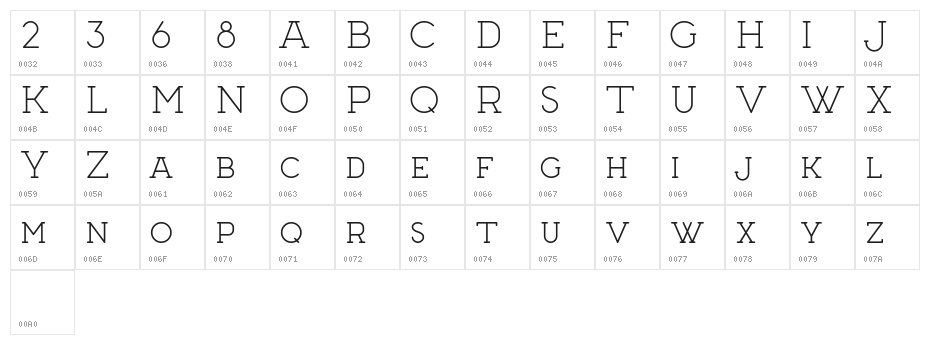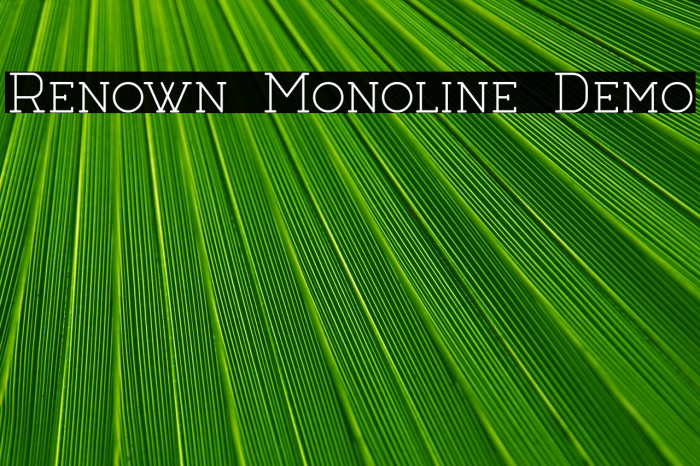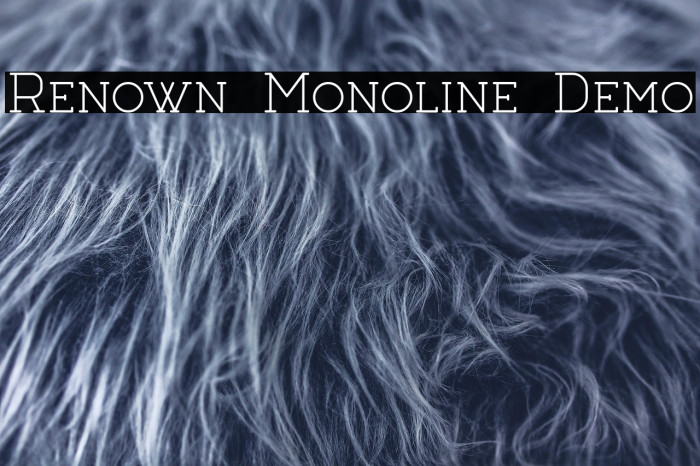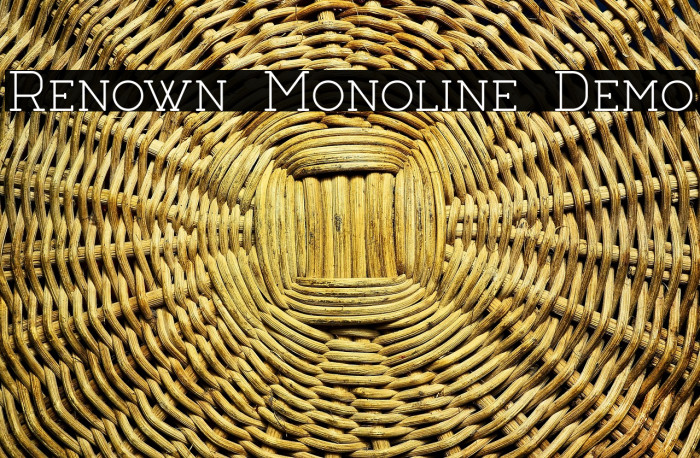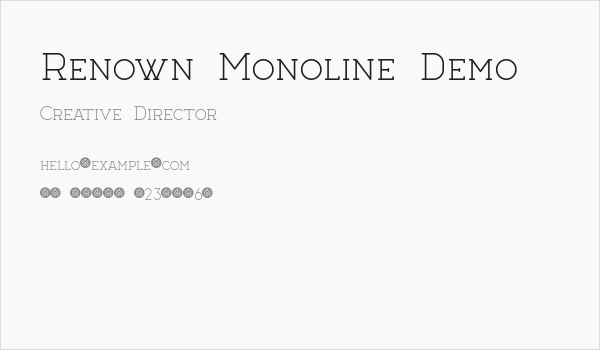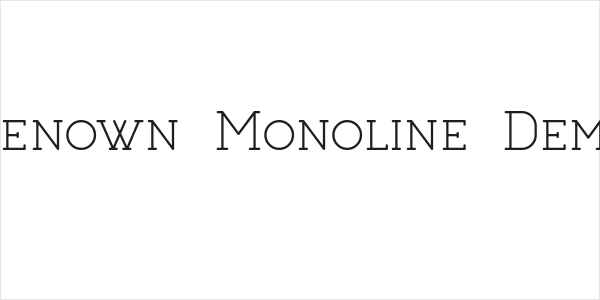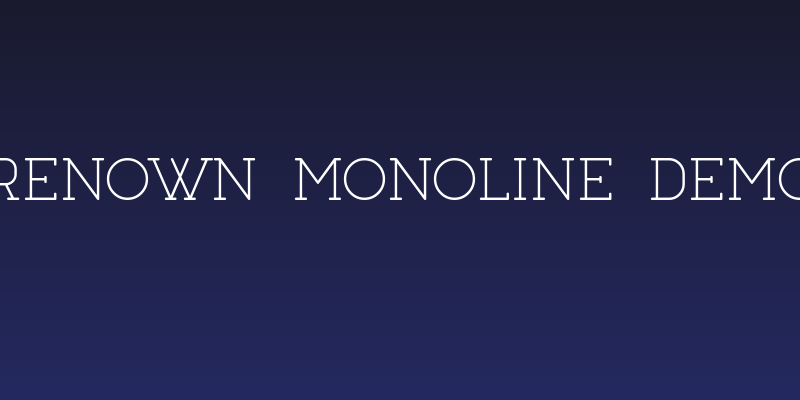
Renown Monoline Demo Font
Renown Monoline Demo Description
This font features a clean and elegant monoline design, characterized by consistent stroke widths throughout each character. The uppercase letters exhibit a classic and timeless appeal, with a slight geometric influence that enhances readability. The numerals are well-proportioned, maintaining the same monoline style, which adds to the font's cohesive appearance. The overall design is minimalistic yet sophisticated, making it versatile for various applications. The spacing between characters is balanced, providing a harmonious flow in text. This font's simplicity and clarity make it suitable for both digital and print media.
| Proposed Projects | Ideal for branding, editorial design, packaging, and web design projects. |